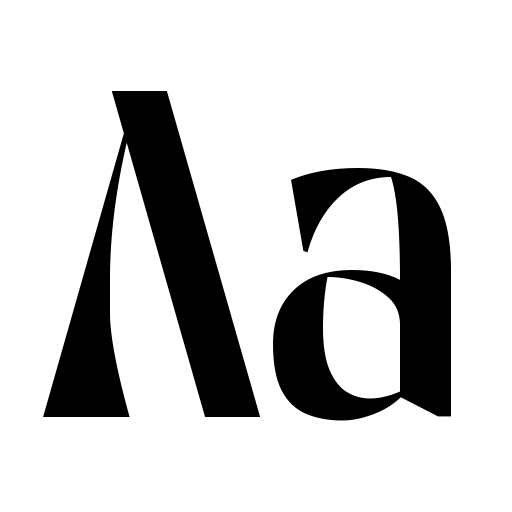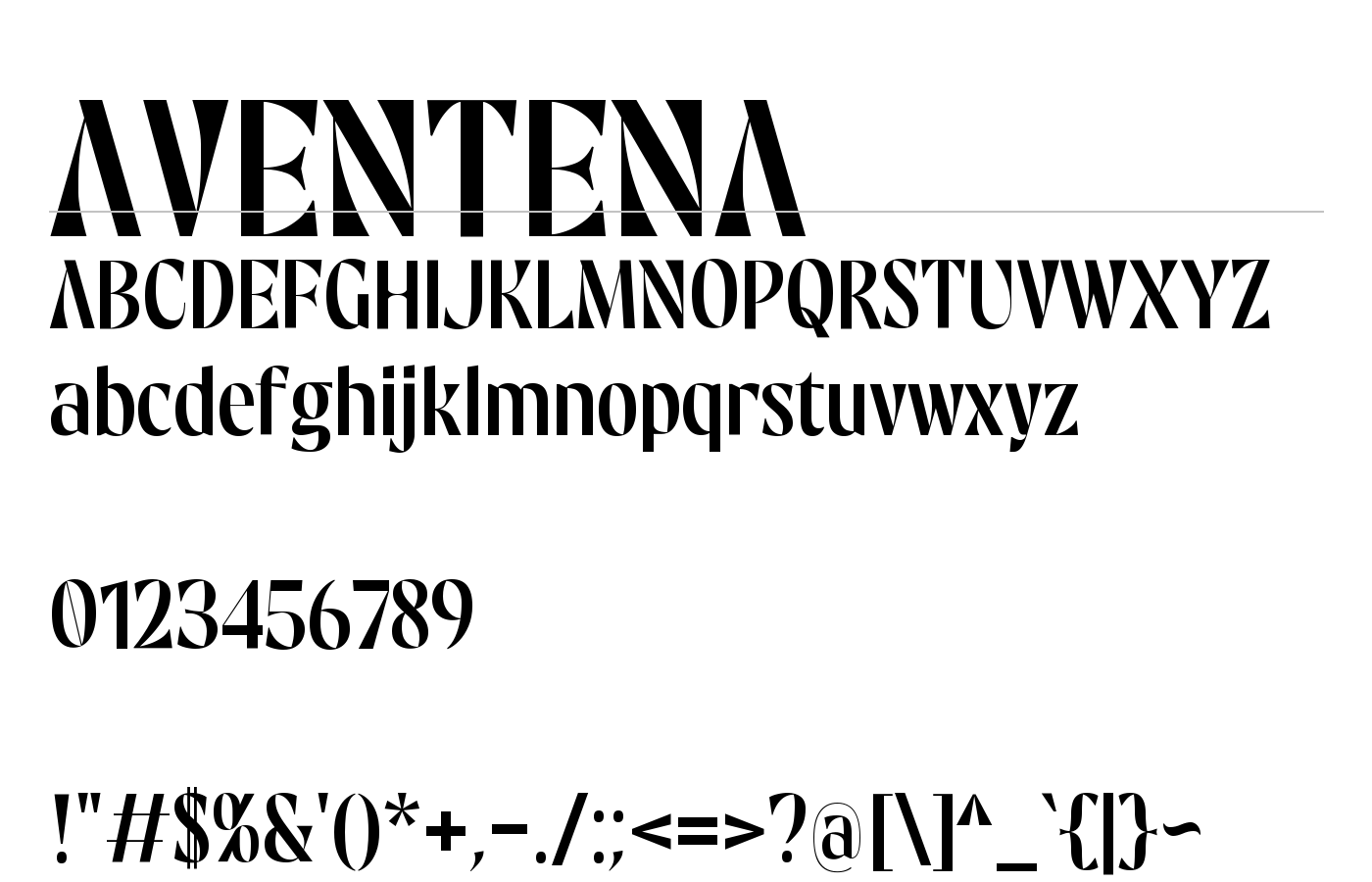
Aventena is a striking serif typeface with a strong modern and elegant appeal, featuring high contrast between thick and thin strokes and sharp, angular serifs. Its condensed proportions and distinctive letterforms, such as the pointed apexes and dramatic curves, give it a bold yet refined look, perfect for luxury branding, editorial headlines, and sophisticated packaging. This font’s unique style commands attention while maintaining readability, making it ideal for stylish, high-impact designs.
AVENTENA Font
About AVENTENA Font
| Font family | AVENTENA Font |
| Designer | Mokatype Studio 2022 - Rivo Adriansyah - Abdul Malik |